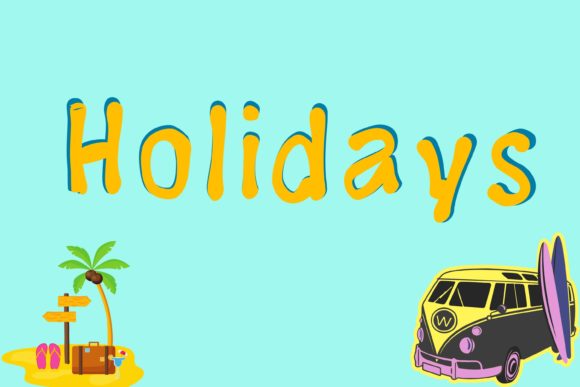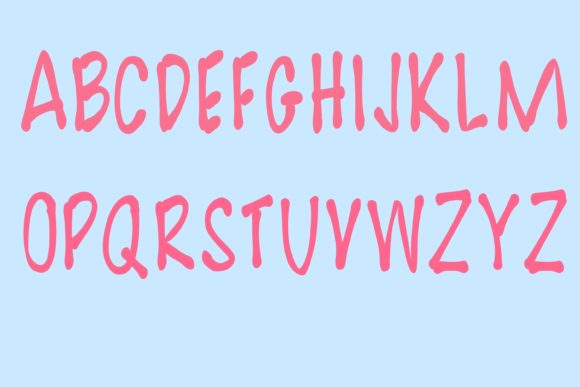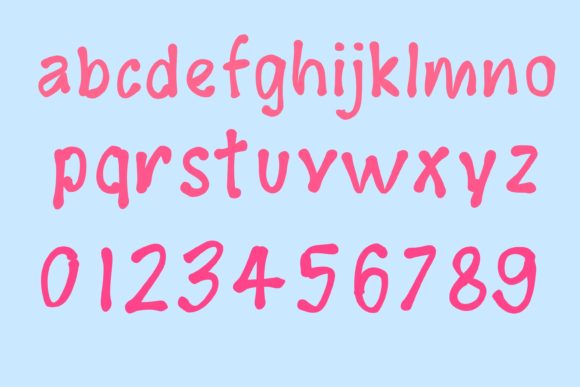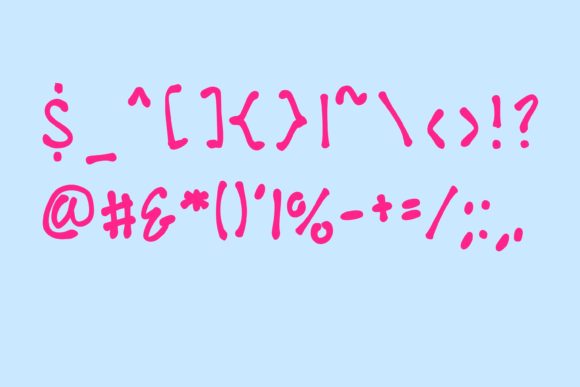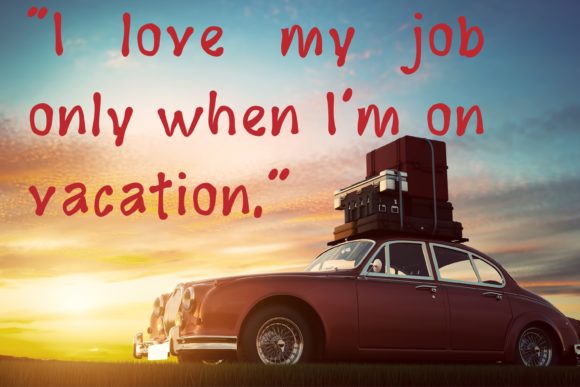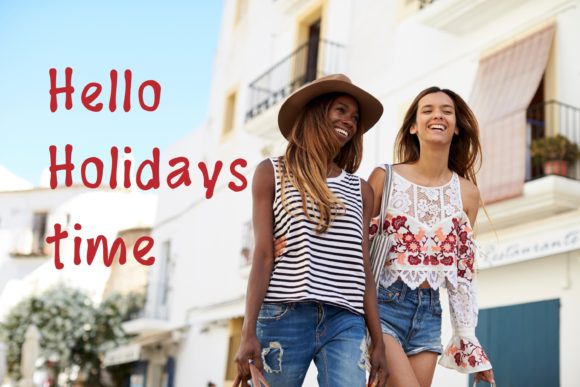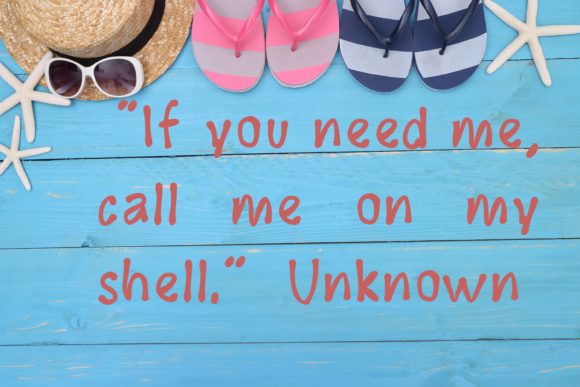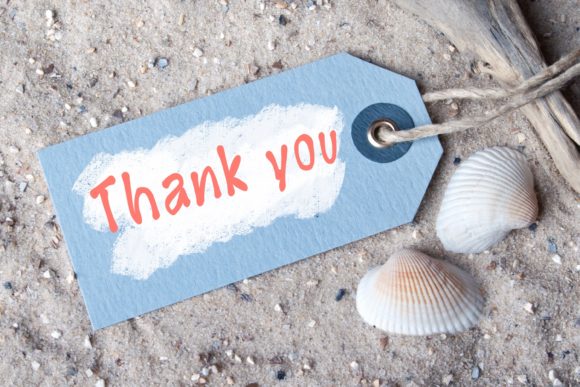
Holidays Font
Holidays is a lovely handwritten font with a neat feel and a striking effect. It will add a touch of joy to every design project that you’re working on!